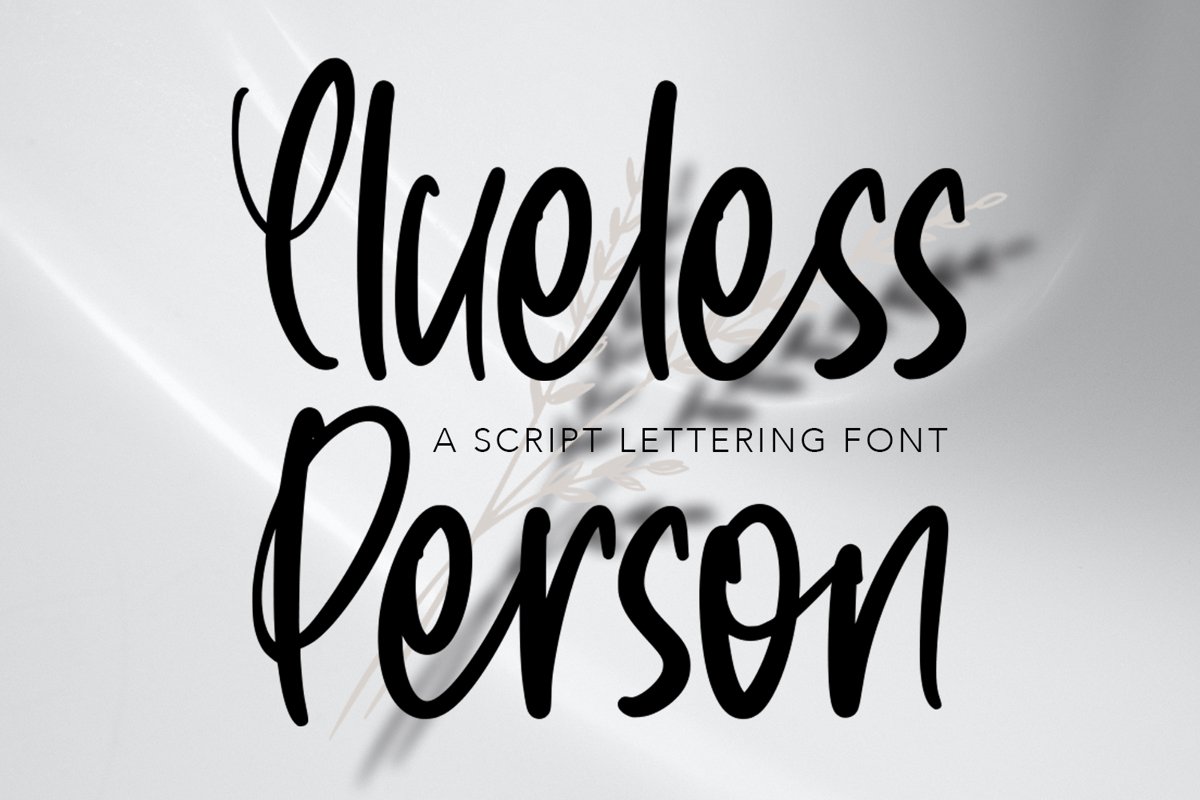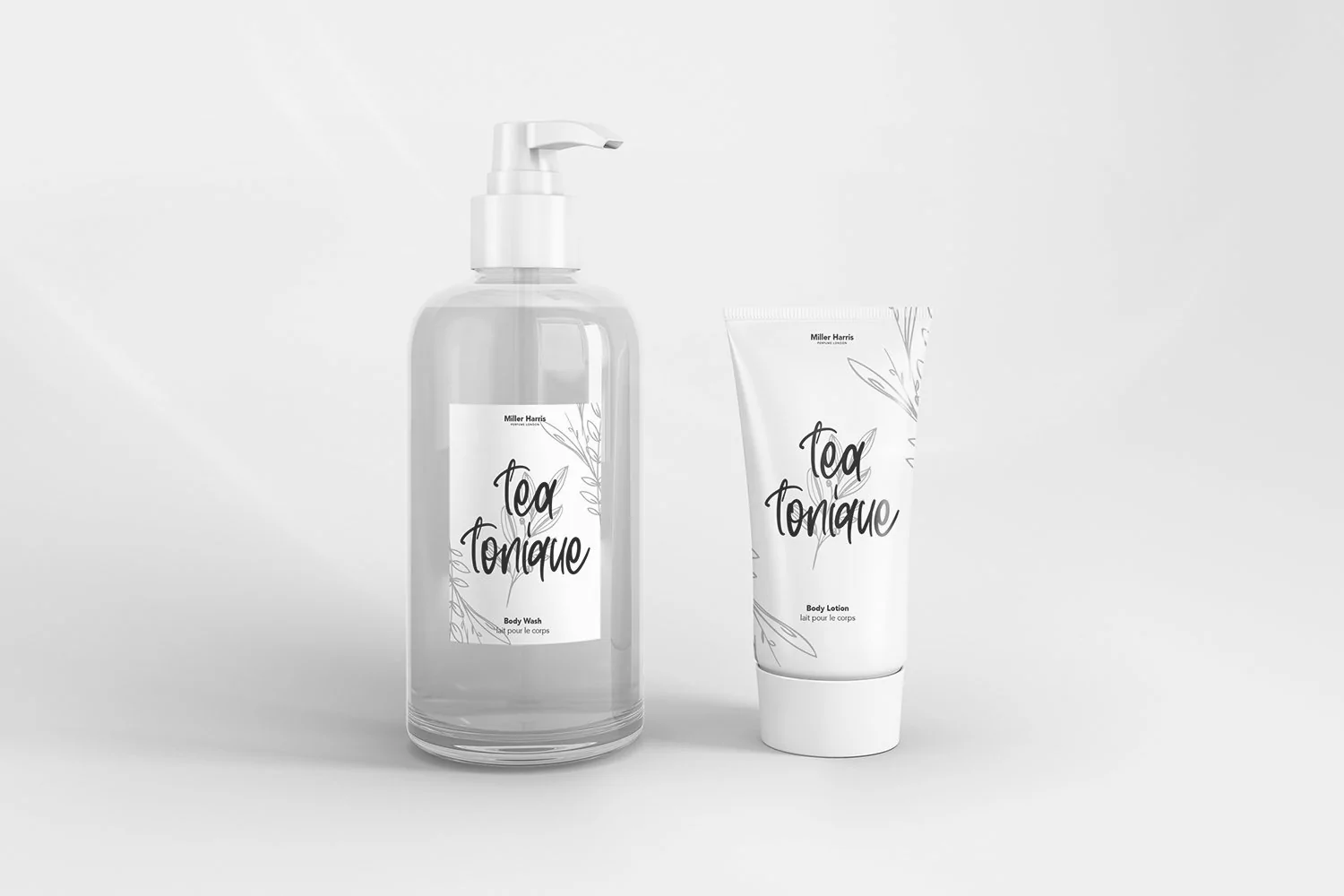
CluelessPerson - Script Lettering Font that contain lowercase, uppercase, symbol, and also support multi language. There’s a lot ligatures in this font. This Font also comes with ligatures, alternates and many more. this font suitable for fashion, branding, catalog and other design what you want.